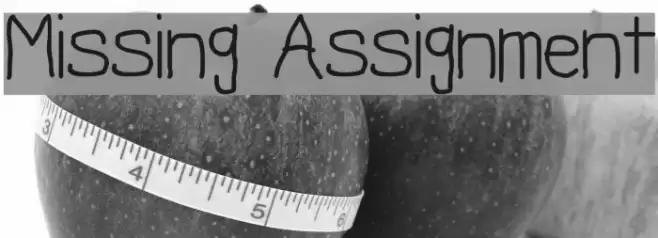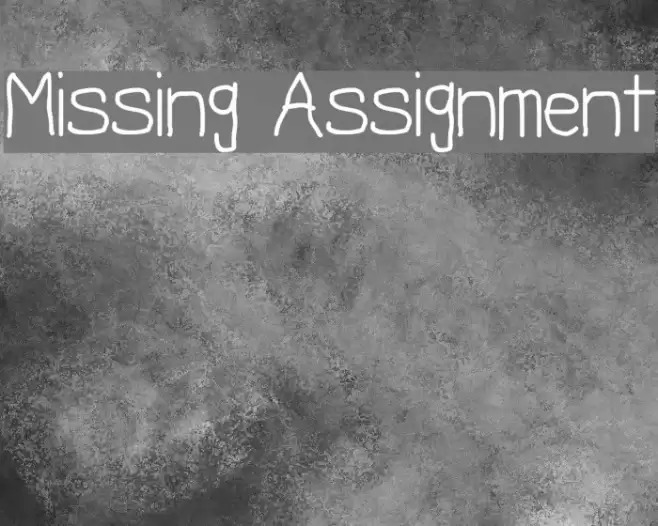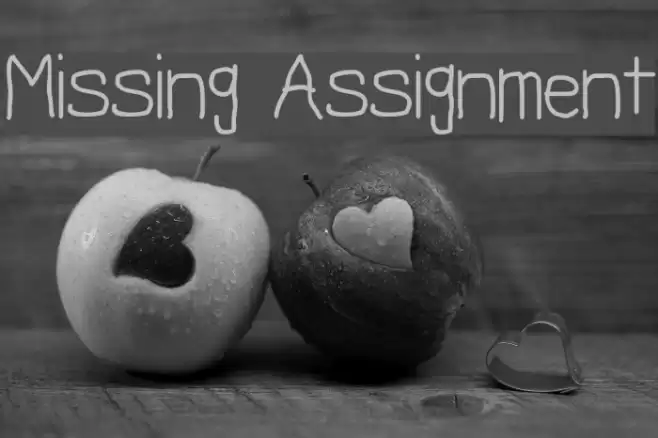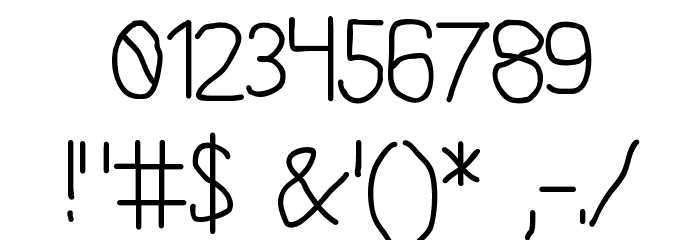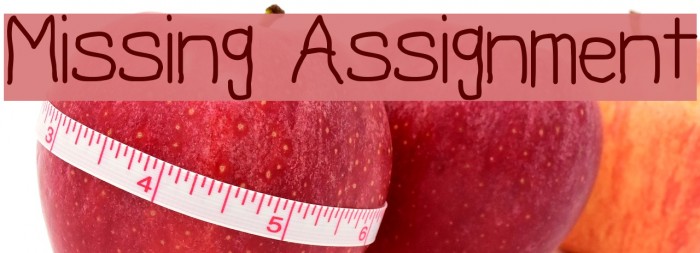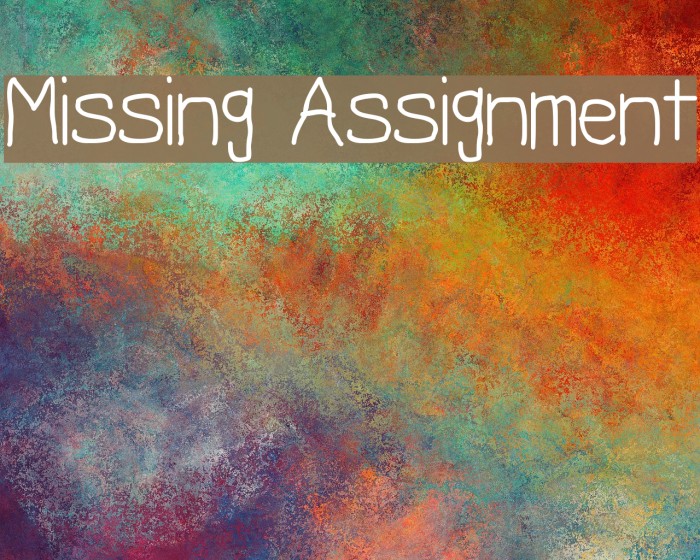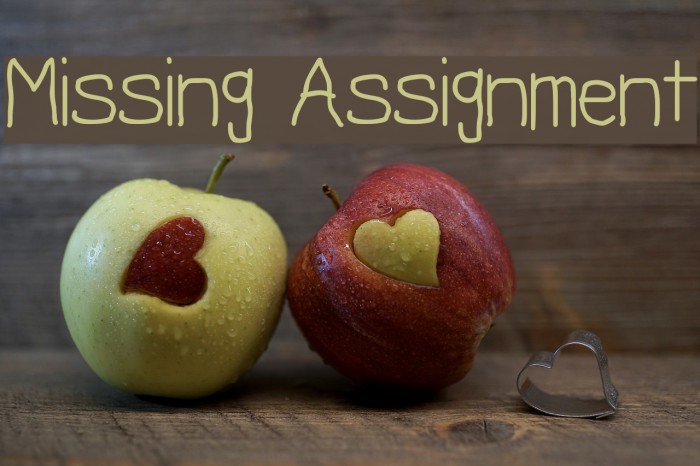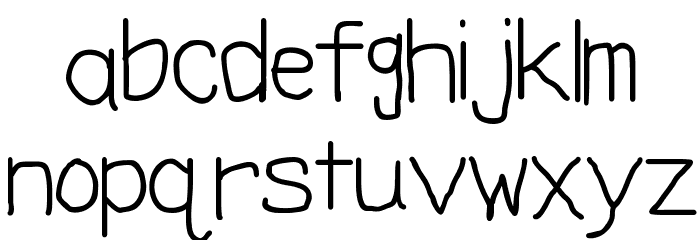
Missing Assignment Font
Missing Assignment Description
This font features a playful and informal handwritten style, characterized by its irregular strokes and casual appearance. The letters are slightly uneven, giving it a whimsical and approachable feel. The uppercase and lowercase letters maintain a consistent style, with rounded edges and a slight slant that adds to the font's charm. Numbers and special characters are designed to match the overall aesthetic, ensuring a cohesive look across all text elements. This font is perfect for projects that require a personal touch or a relaxed vibe.
A playful, handwritten font with a casual and whimsical style from Uncategorized fonts.
- Proposed Projects: Ideal for greeting cards, children's books, casual invitations, and personal blogs.
- Overall Style: Casual
- Use Case: Headlines, Informal text, Personal projects